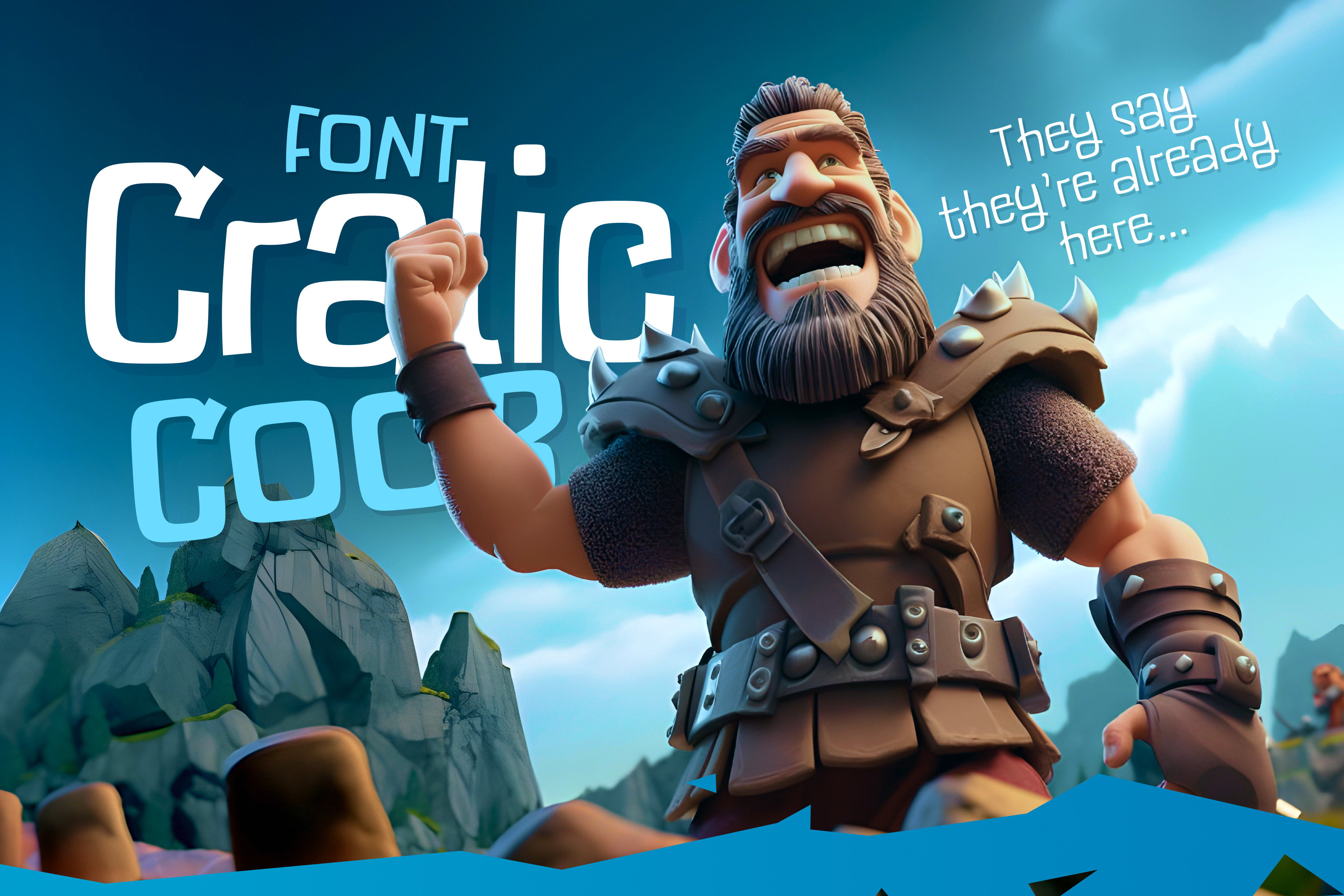
Craliccoob modern kids children font
Great family of 10 fonts Cralic coob
The Cralic Coob font stands out as an exceptional option for those seeking to infuse a sense of playfulness and childlike charm into their creative projects. With its endearing and eccentric display, this font adds an element of whimsy and joy that can uplift the overall appeal of your work. Its versatile nature ensures that it can be employed across a wide spectrum of design endeavors.
This font is particularly well-suited for a range of applications, making it a fantastic choice for diverse projects. Whether you're engaged in branding initiatives, crafting unique and memorable logos, developing captivating wedding designs, curating engaging social media content, conceiving eye-catching advertisements, designing product packaging that makes a statement, or creating appealing labels, the Cralic Coob font can be your creative companion.
Furthermore, its distinctive handwritten style imparts a personalized and charming quality to photography projects, accentuating the visual narrative you wish to convey. It also adds a touch of sophistication to your invitations, making them all the more memorable.
In essence, the Cralic Coob font is a valuable asset for designers who want to introduce a sense of whimsy and individuality into their projects. Its capacity to evoke a childlike sense of wonder, combined with its adaptability, makes it the perfect choice for infusing character and lightheartedness into your creative work.